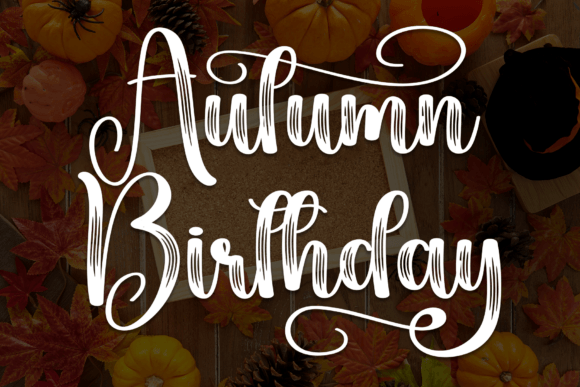
Embracing the Cozy Spirit: A Deep Dive into the Autumn Birthday Font
As a designer, I’ve had my fair share of projects that required the perfect font to capture the essence of a season or celebration. One of my most memorable experiences was working on a fall-themed invitation for a friend’s birthday party. The goal was to create a warm and inviting atmosphere that screamed “fall” without being too obvious. That’s when I stumbled upon the Autumn Birthday font, and it instantly became the star of the show! ✨
- ✅ The Autumn Birthday font exudes a cheerful and celebratory vibe, making it perfect for fall-themed projects, birthday parties, and cozy gatherings.
- ✨ Its playful, cursive style with a mix of rounded and pointed edges gives it a unique charm that’s both modern and whimsical.
- 🔍 The font comes with a range of OpenType features, including stylistic alternates and glyphs, which allow for extensive customization.
While the Autumn Birthday font is fantastic for many projects, there are a few things to keep in mind:
- ⚠️ It might not be the best fit for very formal or traditional designs, as its playful nature might clash with more conservative aesthetics.
- 🤔 Some of the more intricate glyphs and stylistic alternates can be a bit finicky in certain software, so be prepared to experiment and adjust settings.
The Designer’s Inspiration Behind Autumn Birthday
The Autumn Birthday font was inspired by the cozy warmth of fall gatherings. Imagine sitting around a bonfire with friends, surrounded by colorful leaves and the soft glow of twinkling lights. The designer aimed to capture this feeling of warmth and celebration in a font that’s both playful and elegant. By combining traditional cursive elements with modern, whimsical touches, Autumn Birthday became a font that’s perfect for birthdays, holidays, and any occasion that calls for a touch of fall magic.
Q: What makes the Autumn Birthday font unique?
A: The Autumn Birthday font stands out with its cheerful, cursive style and a mix of rounded and pointed edges, giving it a unique charm that’s both modern and whimsical.
Q: Is the Autumn Birthday font suitable for body text?
A: While it’s primarily designed for headings and titles, the Autumn Birthday font can be used for short paragraphs of body text. However, for longer texts, a more readable font might be preferable.